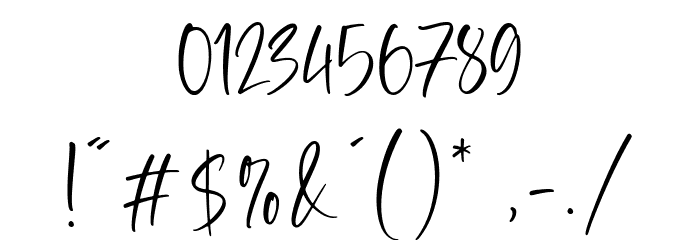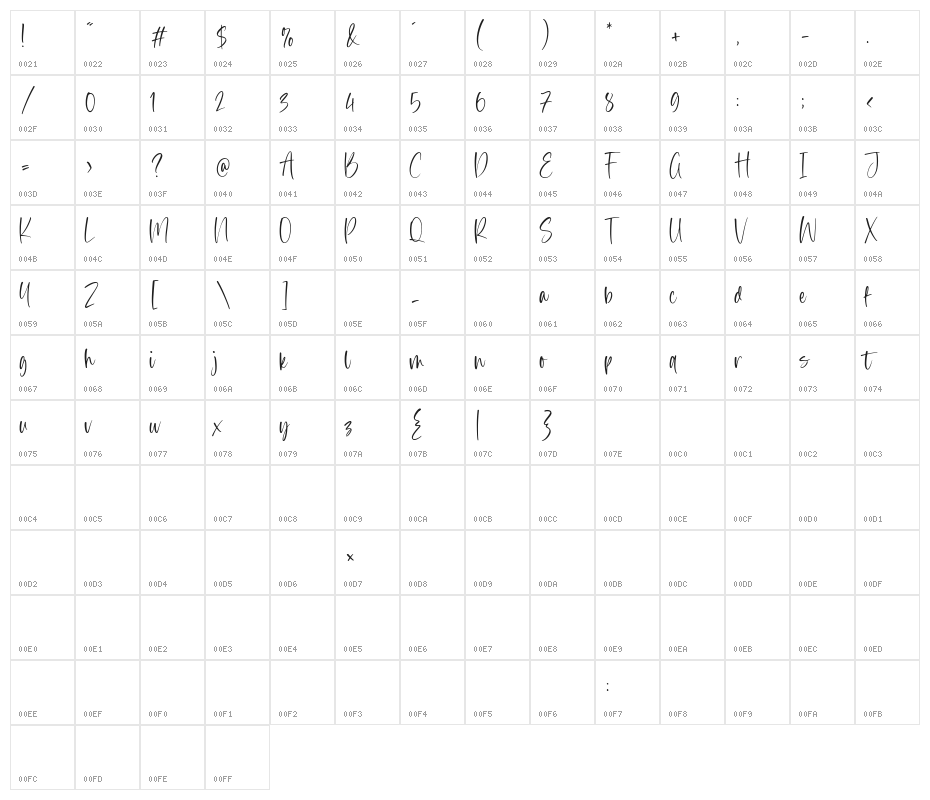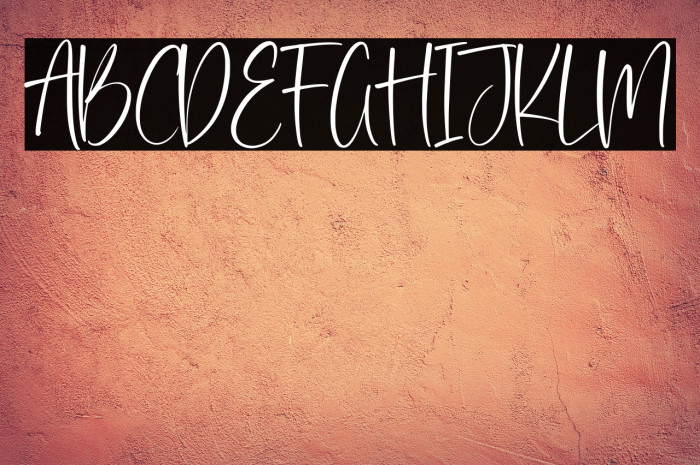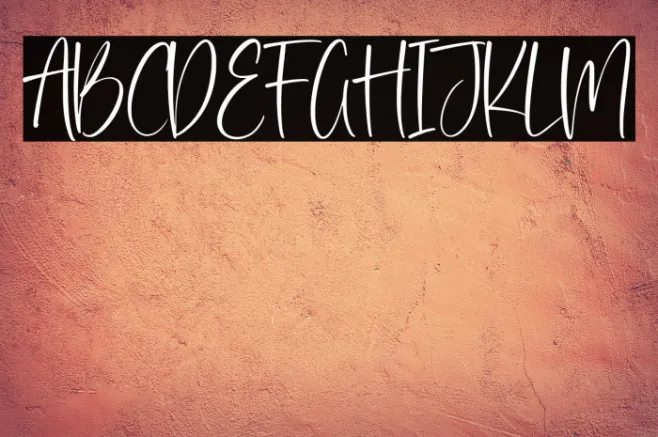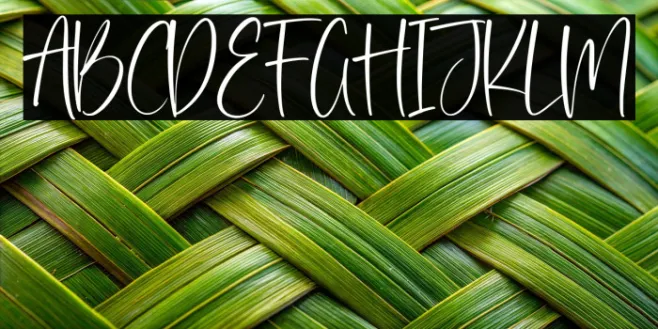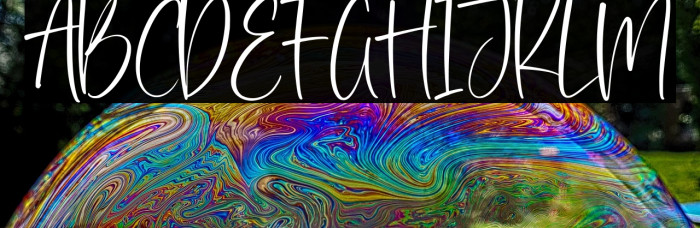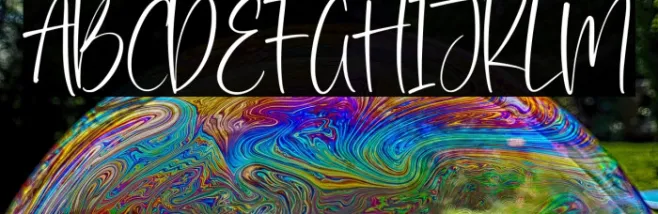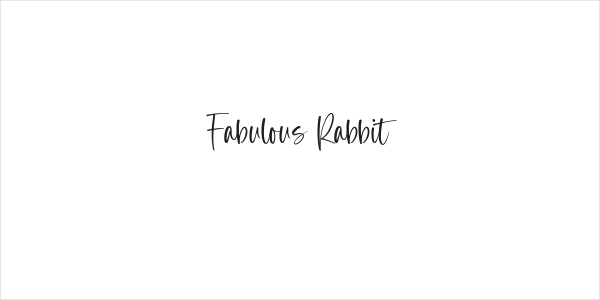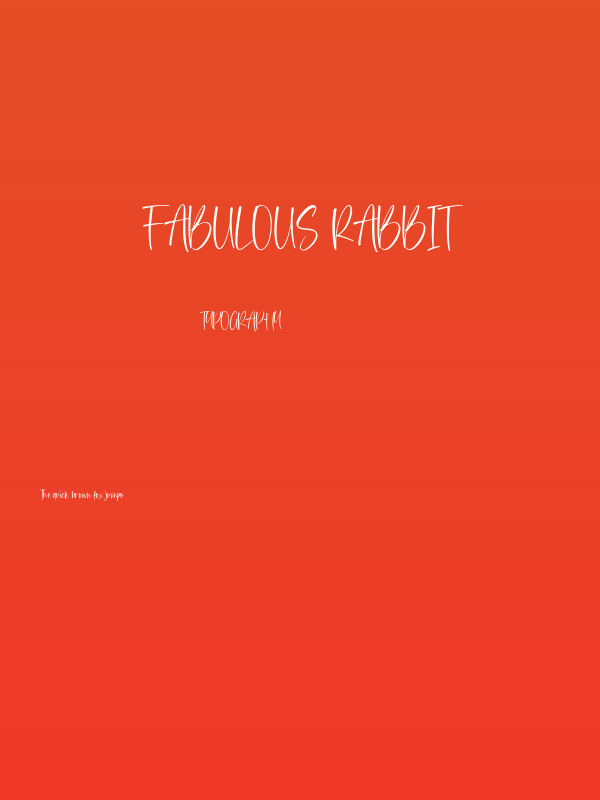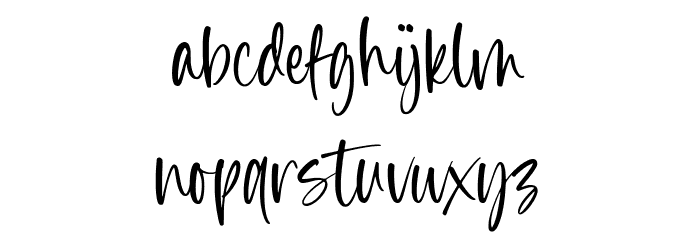
Fabulous Rabbit Font
Fabulous Rabbit Description
This font exudes a playful and energetic vibe with its handwritten style. The characters are fluid and dynamic, featuring a natural flow that mimics casual handwriting. Each letter has a unique personality, with varying heights and slants that add to its charm. The uppercase letters are bold and prominent, while the lowercase letters maintain a consistent rhythm, making it versatile for various design needs. The numerals are clear and legible, complementing the overall style. Special characters are creatively integrated, enhancing the font's expressive nature. This font is perfect for projects that require a personal touch, such as invitations, greeting cards, or branding materials.
| Overall Style | Playful, Energetic |
| Proposed Projects | Ideal for invitations, greeting cards, branding materials, and any project needing a personal, handwritten feel. |